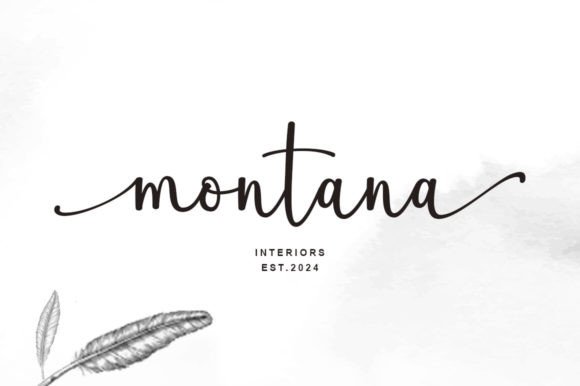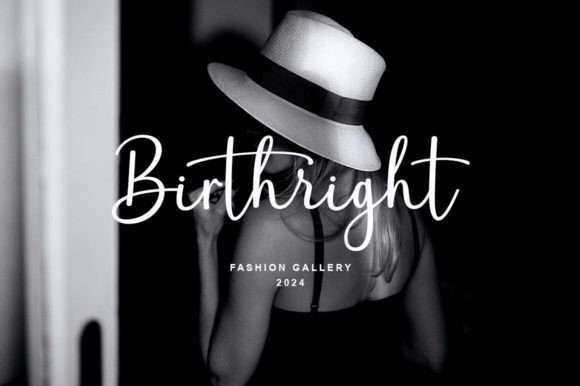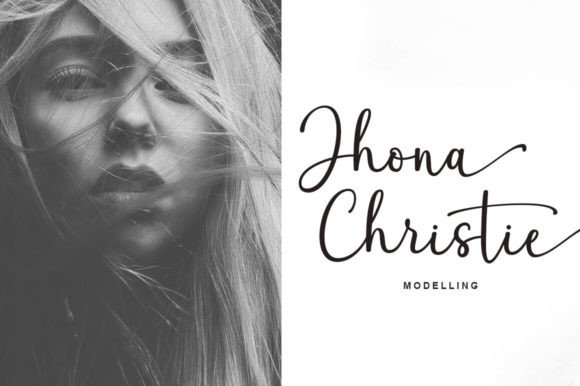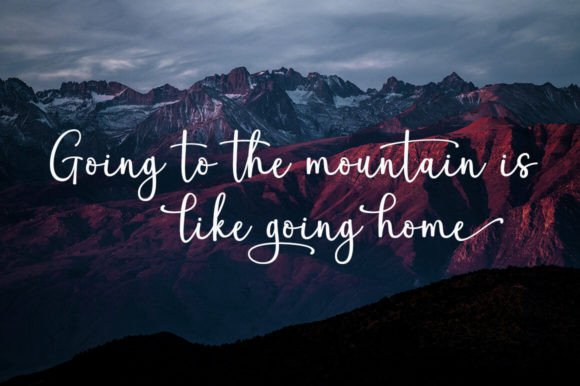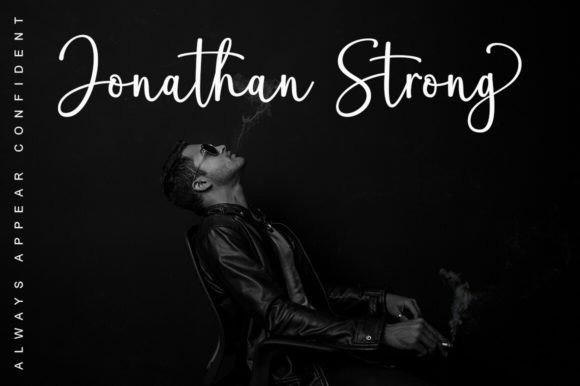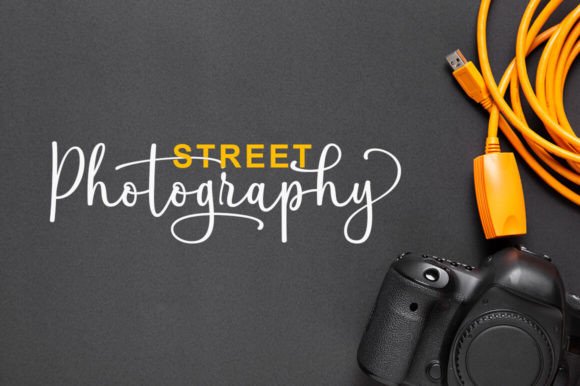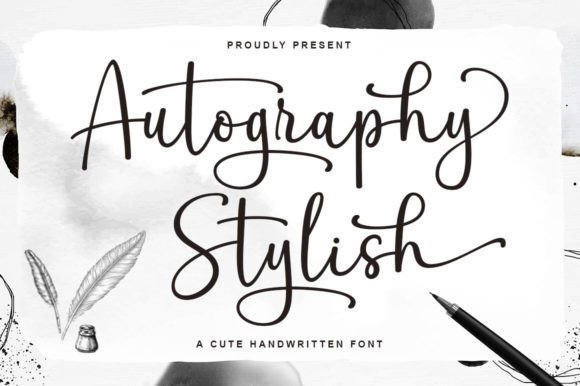
Introducing Autography Stylish – Casual Script Font
Are you a designer or crafter looking for a unique and stylish font to elevate your creative projects? Look no further than Autography Stylish, a natural handwritten font that is perfect for a wide range of applications. In this article, we’ll take a closer look at the features and benefits of Autography Stylish, and explore how you can use it to add a touch of elegance and sophistication to your designs.
What is Autography Stylish?
Autography Stylish is a casual script font that is designed to mimic the look and feel of natural handwriting. With its fluid strokes and elegant letterforms, this font is perfect for creating beautiful and eye-catching designs that are sure to stand out. Whether you’re working on a logo, invitation, or social media post, Autography Stylish is the perfect choice for adding a personal touch to your project.
Key Features of Autography Stylish
- Natural Handwritten Style: Autography Stylish is a true handwritten font, with each letter and stroke carefully crafted to mimic the look and feel of natural handwriting.
- Perfect for a Wide Range of Projects: From logos and invitations to social media posts and product packaging, Autography Stylish is the perfect choice for any project that requires a touch of elegance and sophistication.
- Elegant and Easy to Read: With its clear and elegant letterforms, Autography Stylish is easy to read and understand, making it perfect for use in a wide range of applications.
Uses for Autography Stylish
Autography Stylish is a versatile font that can be used in a wide range of applications, including:
- Logos and Branding: Create a unique and memorable logo for your business or brand with Autography Stylish.
- Invitations and Stationery: Add a touch of elegance and sophistication to your invitations, stationery, and other paper goods with Autography Stylish.
- Wedding Designs: Make your wedding stationery, signs, and decorations truly special with Autography Stylish.
- Social Media Posts: Elevate your social media posts and make them stand out with Autography Stylish.
- Product Packaging and Design: Add a personal touch to your product packaging and design with Autography Stylish.
- Labels and Watermarks: Use Autography Stylish to create beautiful and elegant labels and watermarks for your products or photos.
Why Choose Autography Stylish?
With so many fonts to choose from, why should you choose Autography Stylish? Here are just a few reasons why:
- Unique and Handwritten Style: Autography Stylish offers a unique and handwritten style that is sure to stand out in a crowd.
- Elegant and Sophisticated: This font is perfect for adding a touch of elegance and sophistication to your designs.
In conclusion, Autography Stylish is a beautiful and elegant casual script font that is perfect for designers and crafters looking to add a touch of sophistication to their projects. With its natural handwritten style, elegant letterforms, and versatility, Autography Stylish is the perfect choice for a wide range of applications. So why wait? Download Autography Stylish today and start creating beautiful and eye-catching designs that are sure to stand out.